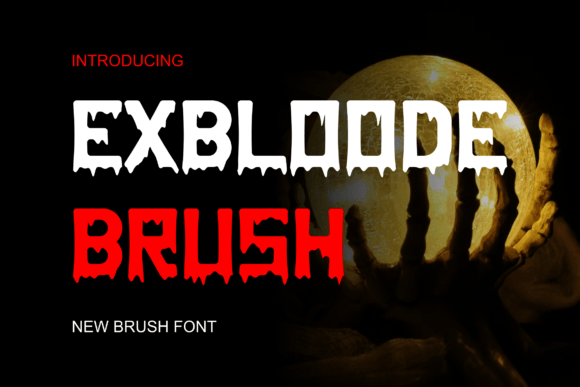
Unleash the digital prowess of your tech projects with Exbloodebrush Font, the ultimate display font designed to elevate your designs to new heights. Crafted by the renowned font artist kalingga.albert, this bold, all-caps font exudes an aura of modernity and sophistication, making it the perfect choice for tech-savvy individuals seeking to leave a lasting impression.
Exbloodebrush Font's meticulously crafted characters, each imbued with a touch of artistic flair, dance across the digital canvas, captivating the eyes and igniting the imagination. Its carefully balanced stroke weights create a visually striking contrast, ensuring your words radiate with power and clarity. Whether you're embarking on a captivating presentation, crafting a visually stunning greeting card, or delving into the realm of digital design, Exbloodebrush Font is your steadfast companion.
As a tech enthusiast, you understand the importance of standing out in a crowded digital landscape. Exbloodebrush Font empowers you to do just that, providing a unique and unforgettable visual identity for your projects. Its bold presence commands attention, while its inherent elegance ensures a level of professionalism that sets you apart from the ordinary.
With Exbloodebrush Font at your disposal, you'll discover a world of creative possibilities. Let your imagination run wild as you explore the endless applications of this remarkable font. From crafting logos that leave a lasting impression to designing websites that captivate and engage, Exbloodebrush Font is your secret weapon for digital domination.
So, embrace the power of Exbloodebrush Font today and embark on a journey of creativity and innovation. Let your designs soar to new heights and leave an indelible mark on the digital world. Exbloodebrush Font: The ultimate font for tech-savvy visionaries who dare to be different.